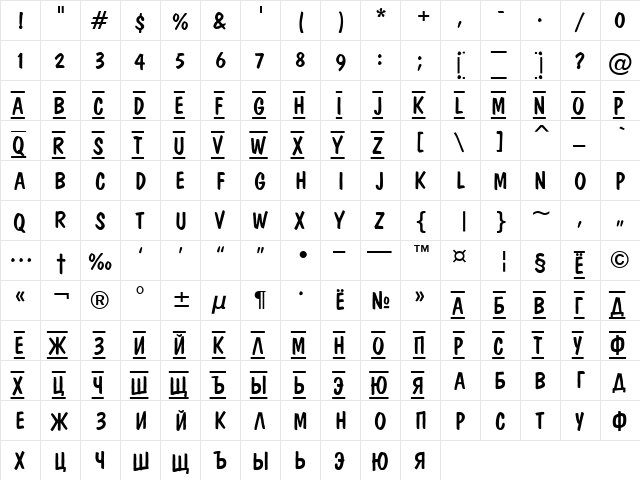
a_DomInoTitulDcFrCmb Normal Font Preview
a_DomInoTitulDcFrCmb Normal
Design Context for a_DomInoTitulDcFrCmb Typeface
a_DomInoTitulDcFrCmb is a composed and adaptable typeface that performs quietly and consistently across a wide range of design contexts.